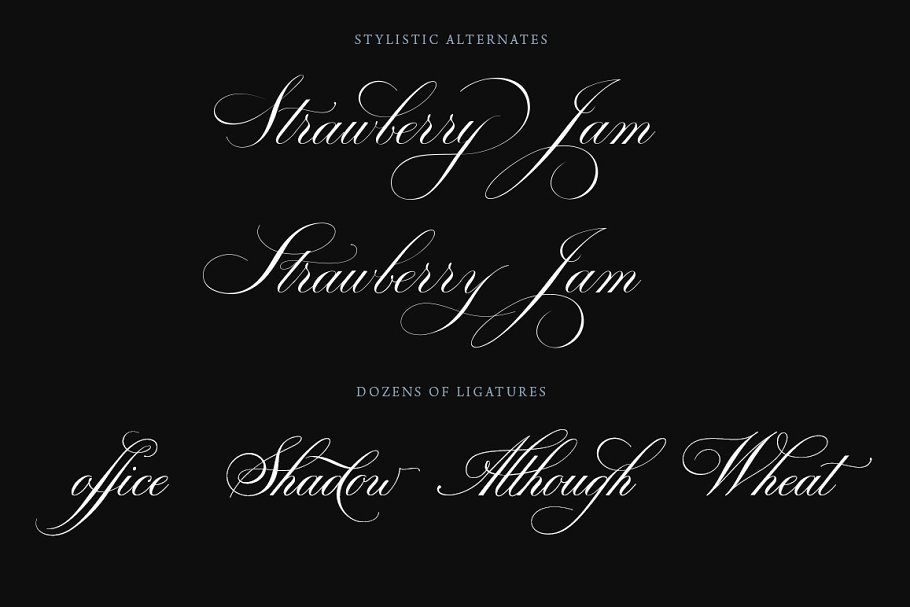
Introducing Bodega Script, the ultimate elegant wedding font that will add a touch of sophistication to any design project. Created by the talented Alex Ivanov, this font family is a perfect blend of classic and modern styles, making it ideal for logos, fashion labels, custom cards, headers, badges, and food packaging designs.
What sets Bodega Script apart is its heavy use of ligatures, creating a seamless flow between letters for a truly unique look. Additionally, the font family boasts a generous number of stylistic alternatives for many letters, allowing you to customize your design to perfection.
Whether you're designing wedding invitations, wine labels, or vintage-inspired branding, Bodega Script is the perfect choice. Its versatility and charm make it an ideal font for anyone looking to elevate their design game.